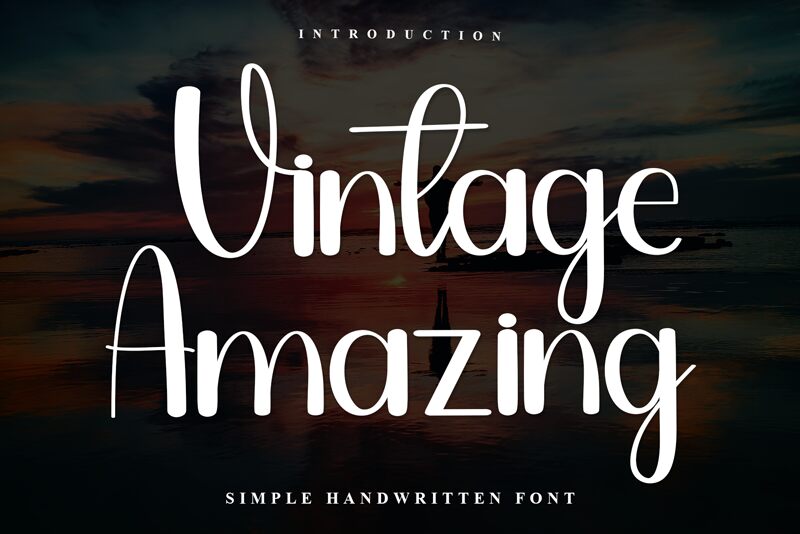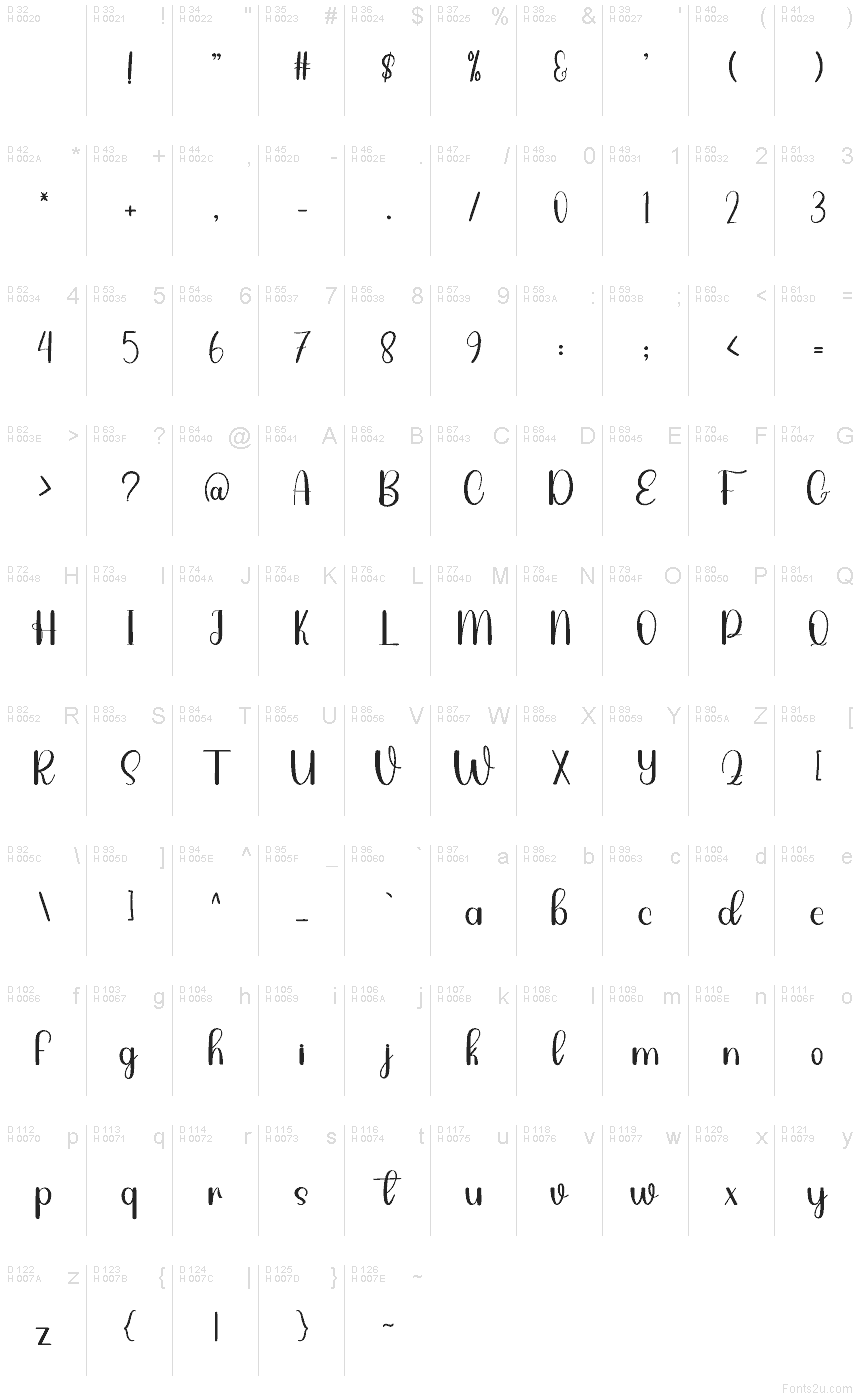
Vintage Amazing
Vintage Amazing font by Inermedia Studio is a free handwritten typeface with tall, airy loops and a silky monoline stroke that feels like ink gliding across smooth paper. Its upright rhythm and generous curves give words a breezy vintage charm without turning fussy, so headlines stay readable while still looking personal and crafted.
Using Vintage Amazing, you’ll get a lively, boutique vibe that shines on logos, packaging labels, wedding suites, quote posters, café menus, and greeting cards. The steady stroke keeps small phrases clear, while the playful bounce adds warmth on larger titles. For a polished mix, pair this free font with a clean geometric sans and add a touch of tracking to let those loops breathe.